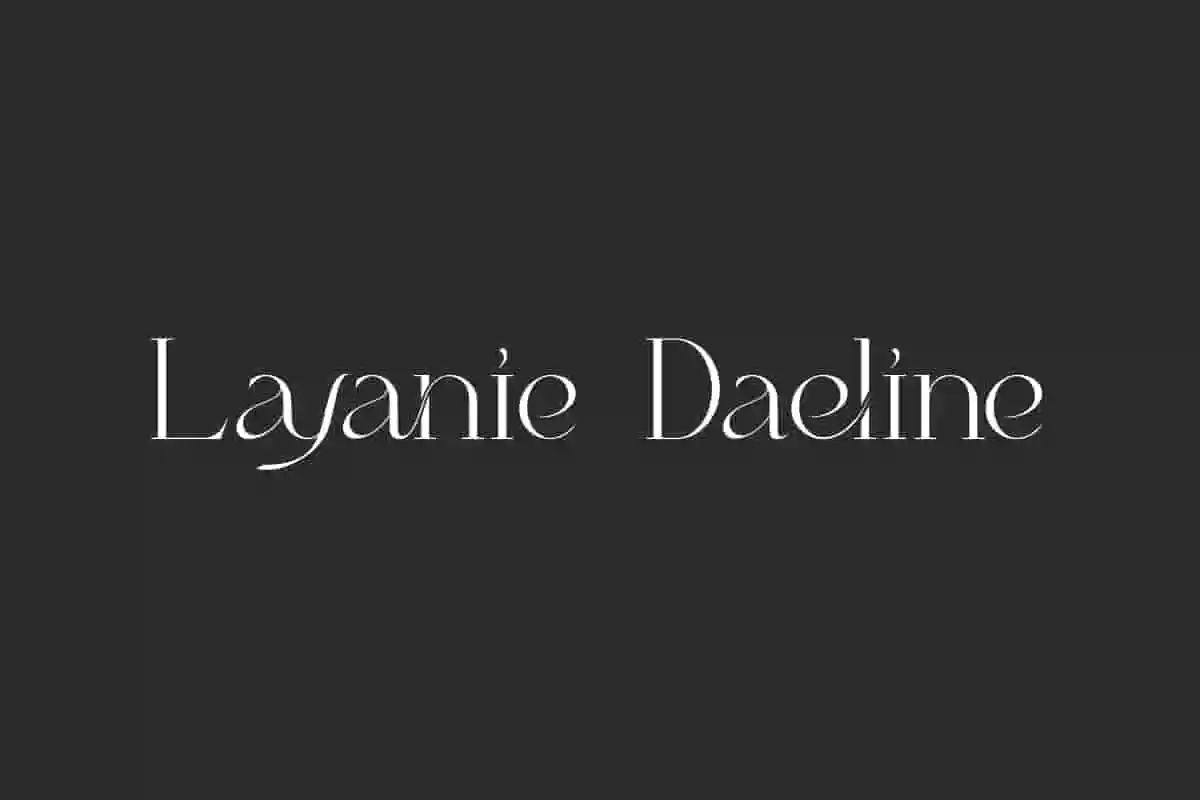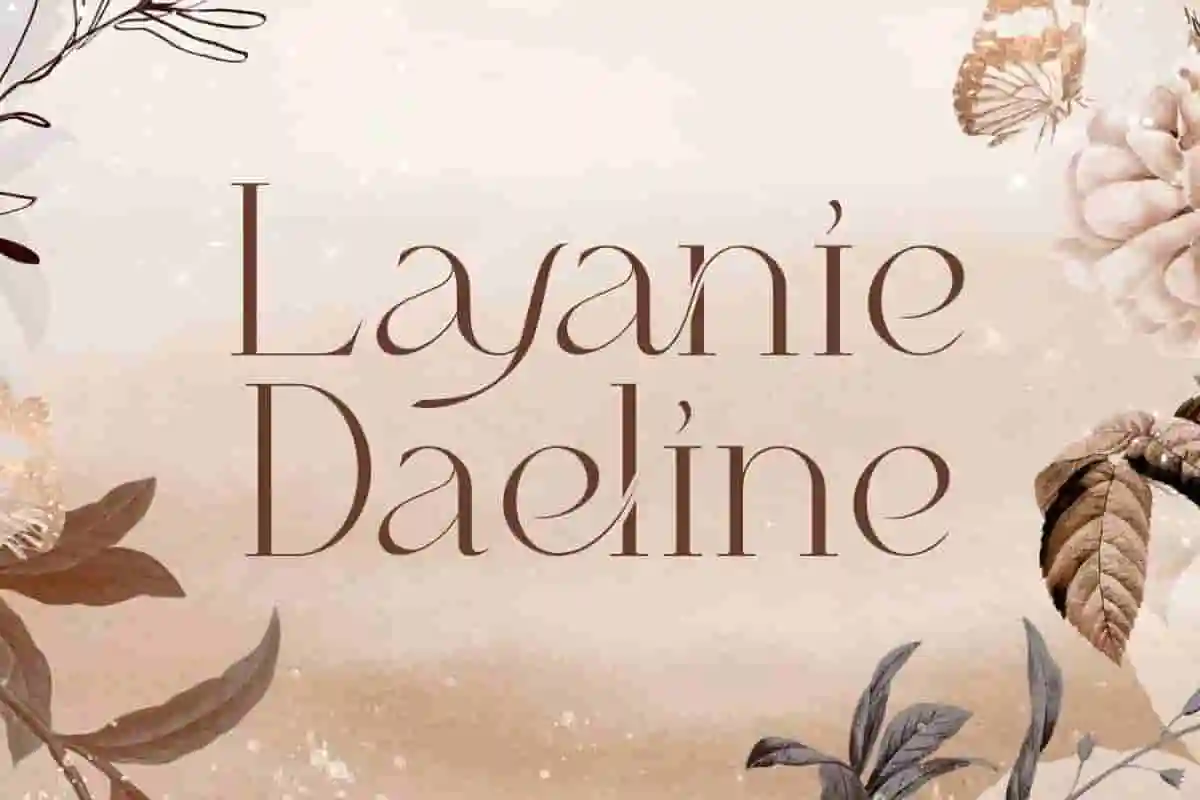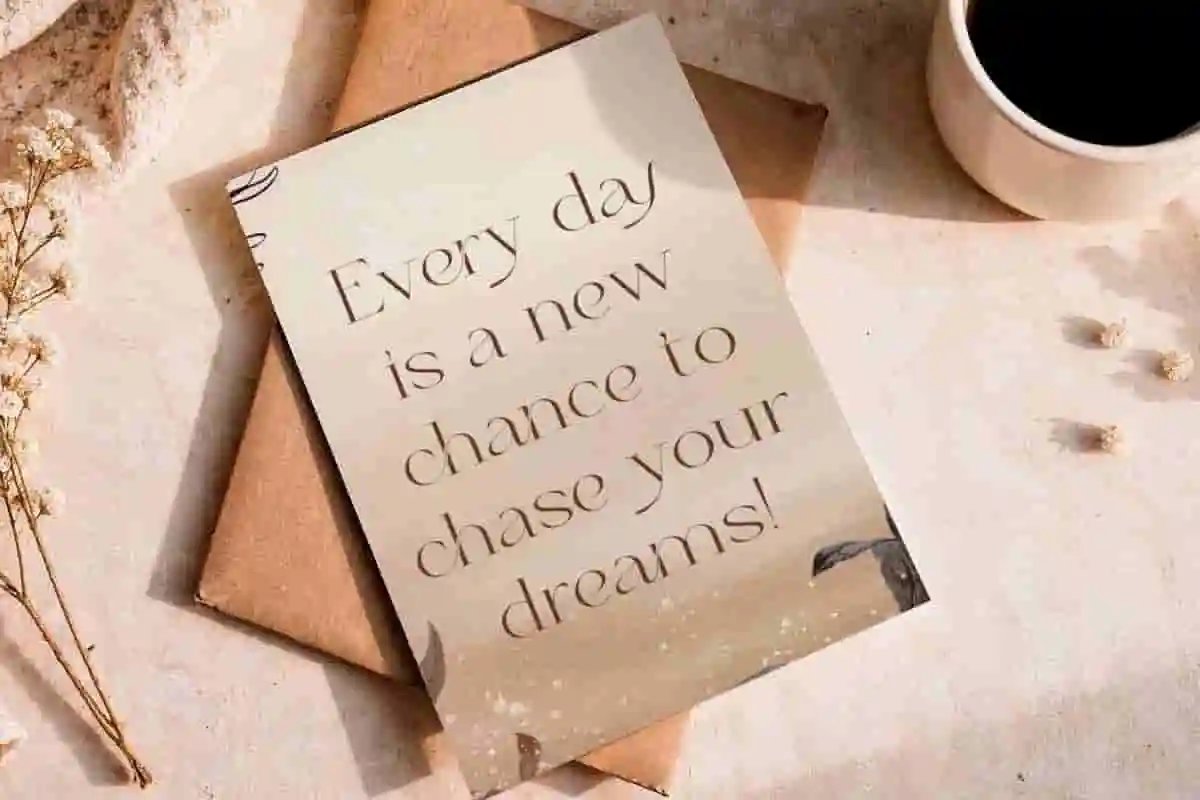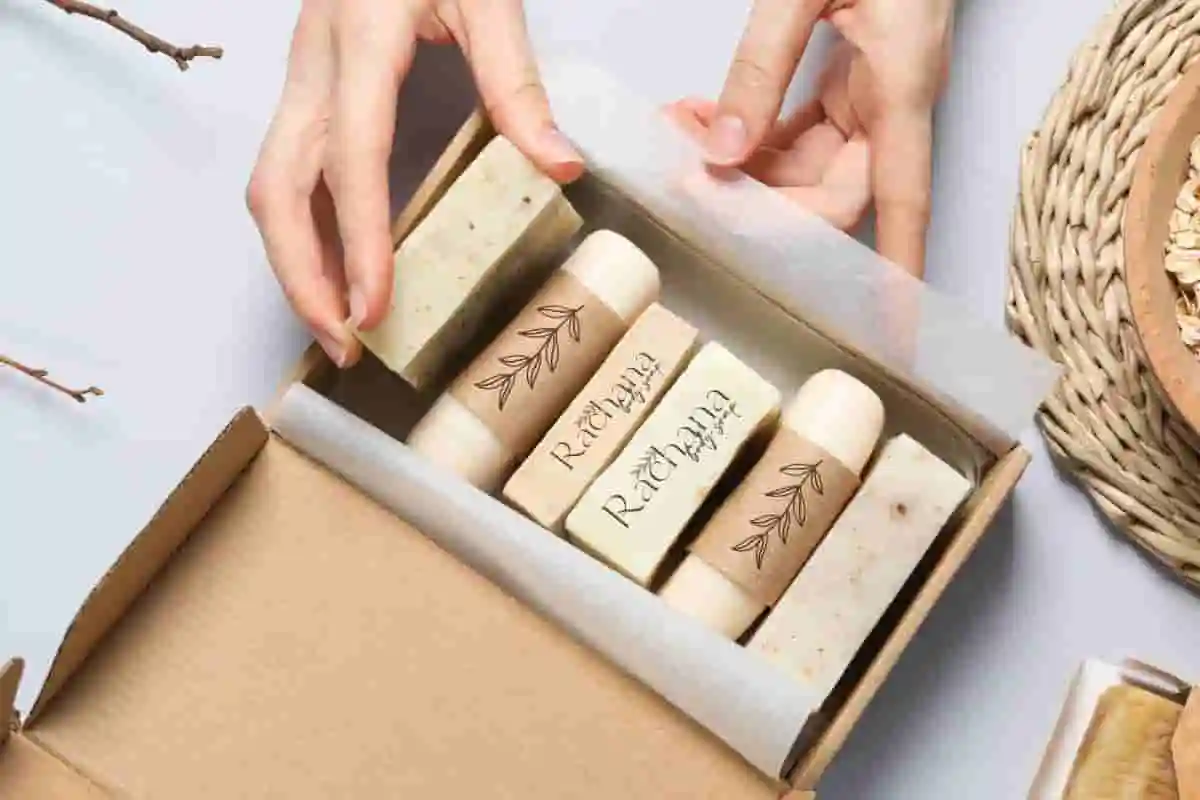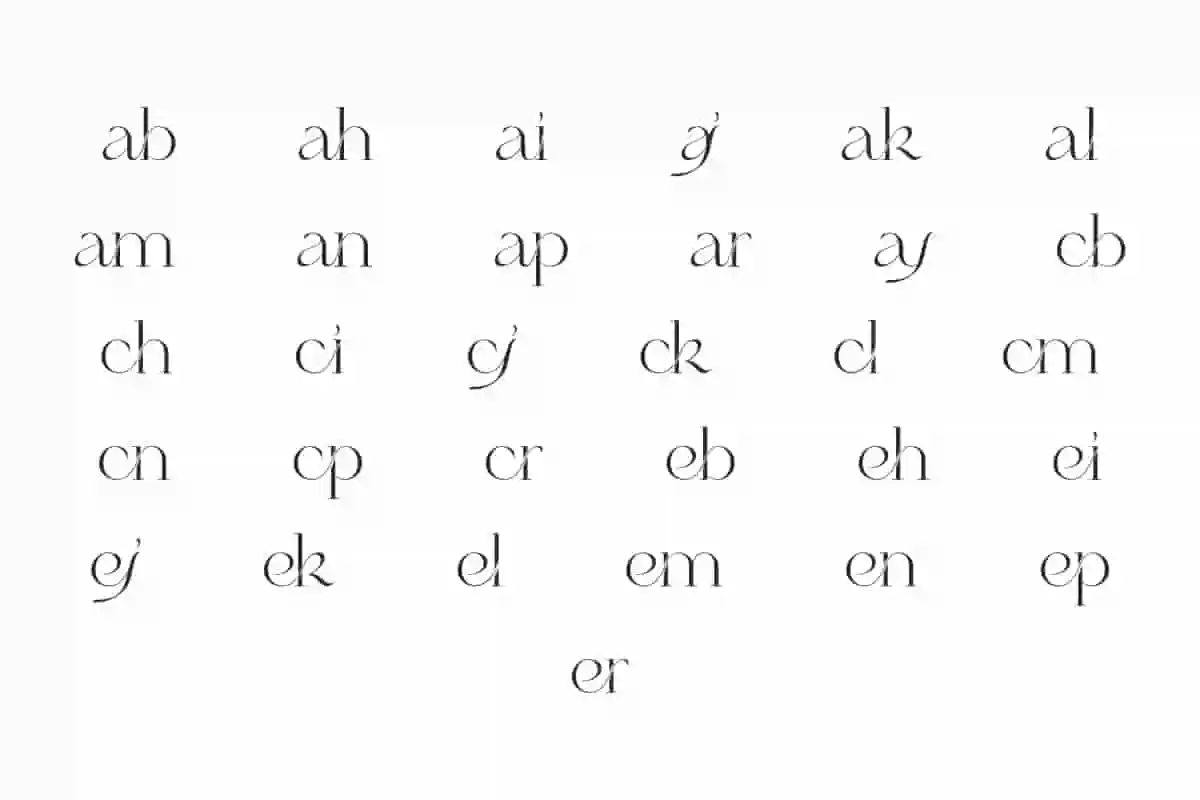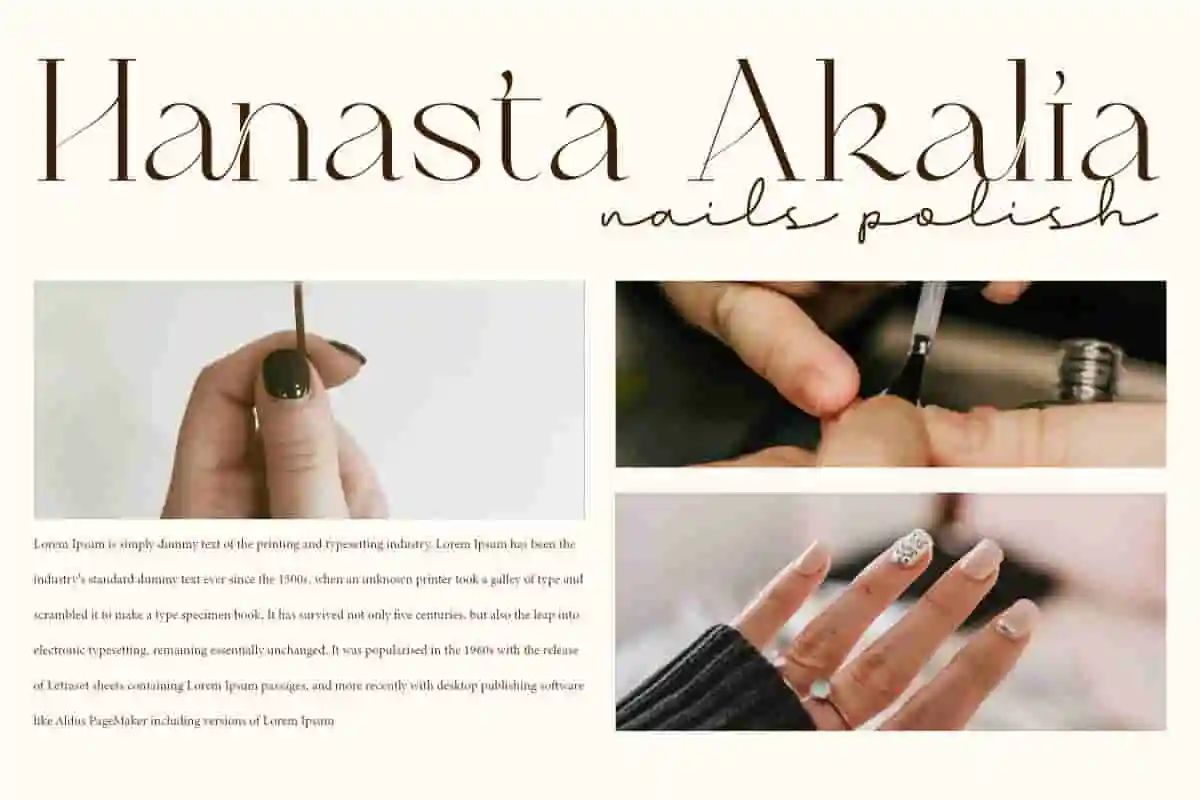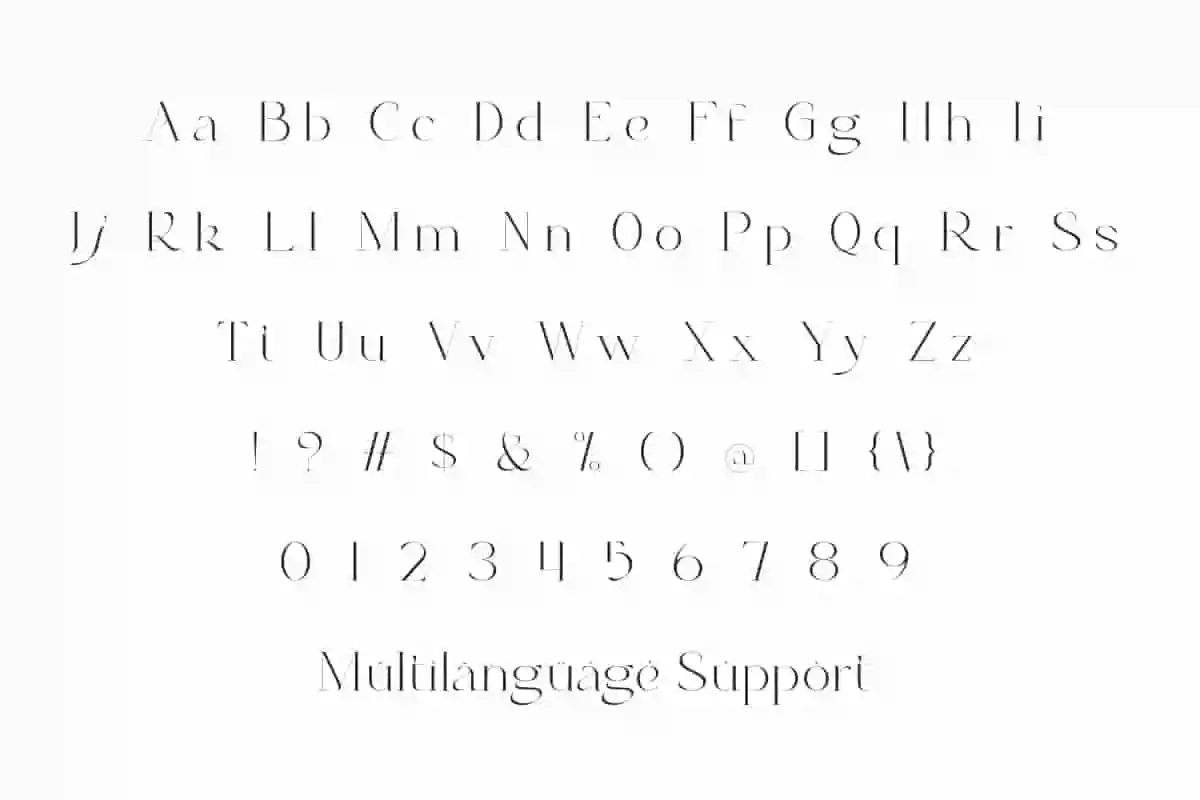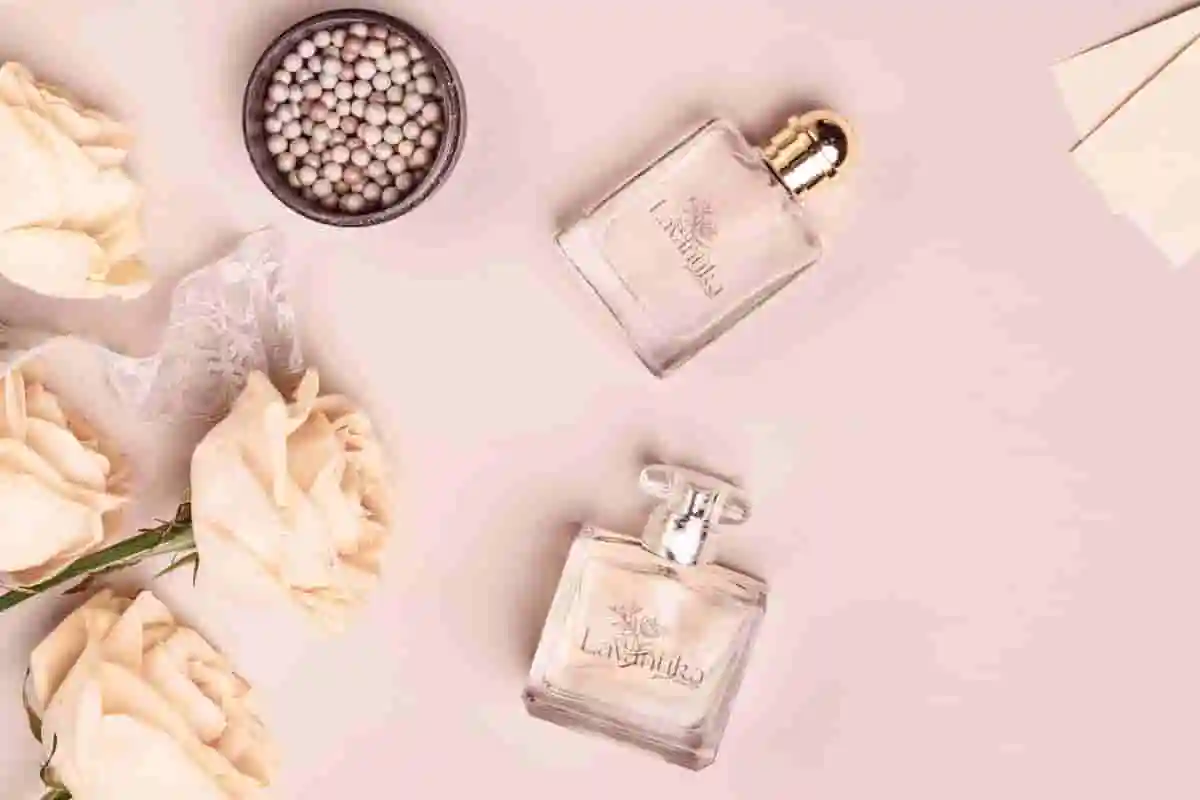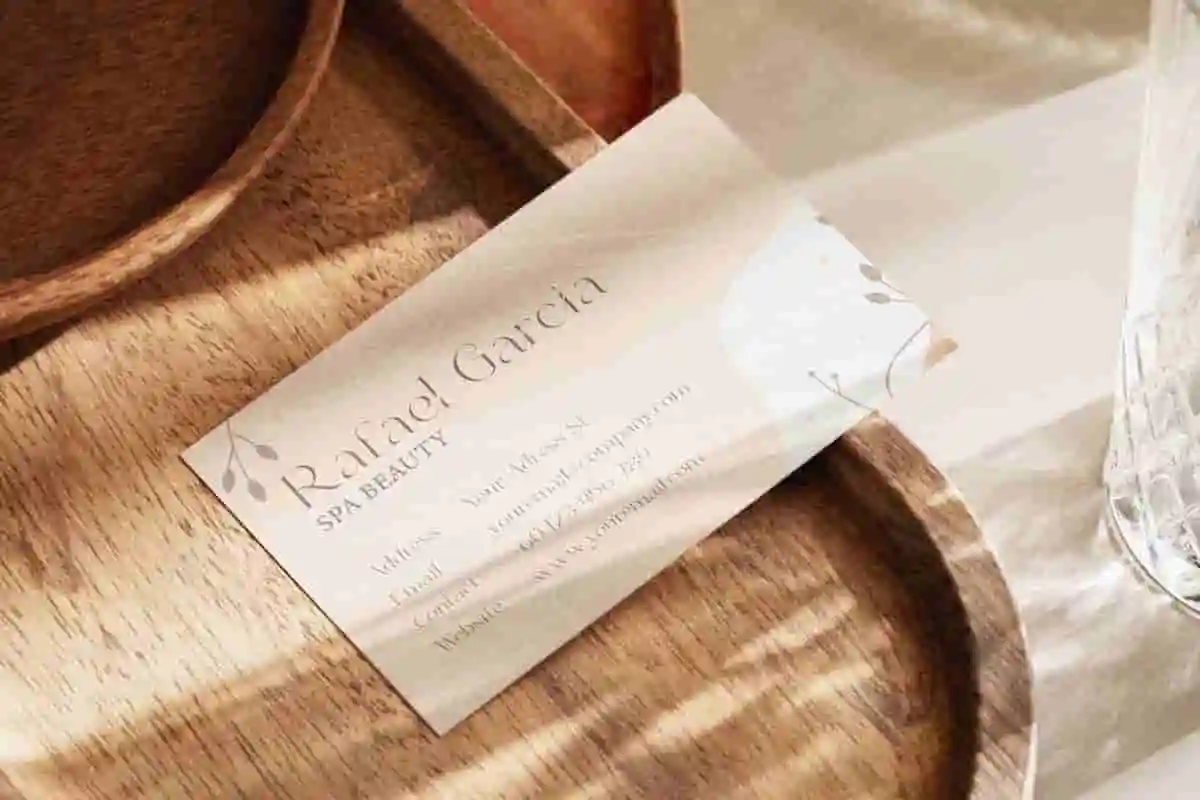
Layanie Daeline Font is a classy serif font with an elegant that mix of thin and thick lines. This font will be perfect for any projects, such as invitation, label, advertisement, custom design, layout design, magazine cover, quotes, signage, stationery, template design, website page, and many more!
Layanie Daeline Font includes a complete set of Uppercase and Lowercase Basic Characters, Numbers, Punctuation, Symbol, and Ligature character. This font gives an exclusive and unique impression. Making it a perfect choice for a variety of fields, such as accessories, advertising, beauty product, cafe, event or wedding organizer, fashion, flower shop, furniture, photography and more.